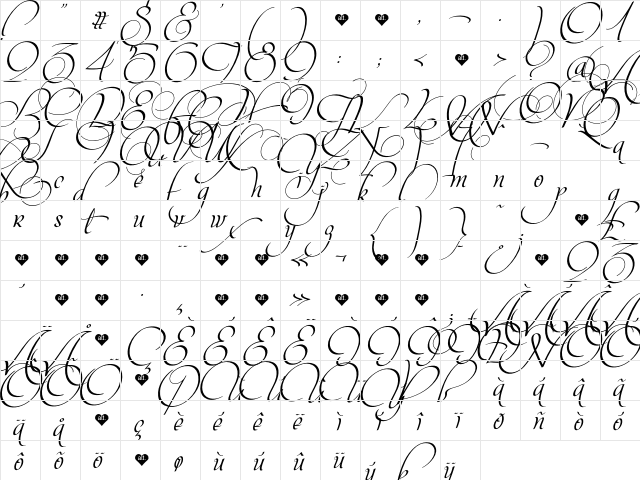
Mon Amour Script Pro Regular
| Foundry | Maximiliano R. Sproviero |
| Designer | Maximiliano R. Sproviero |
Design Context for Mon Amour Script Pro Typeface
Mon Amour Script Pro flows with the natural rhythm of handwritten lettering, making it ideal for designs that call for warmth and personal expression.
Font Pairing: Combine Mon Amour Script Pro with a simple geometric sans for maximum contrast — the tension between flowing curves and clean structure is a classic typographic pairing.
Pro Tip: Pair Mon Amour Script Pro with a clean sans-serif for supporting text. The contrast between fluid script and geometric structure creates an elegant typographic hierarchy.